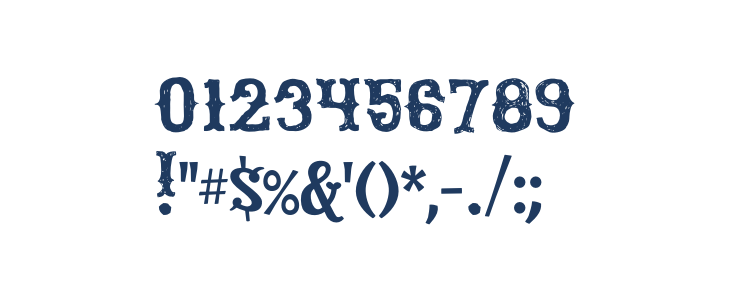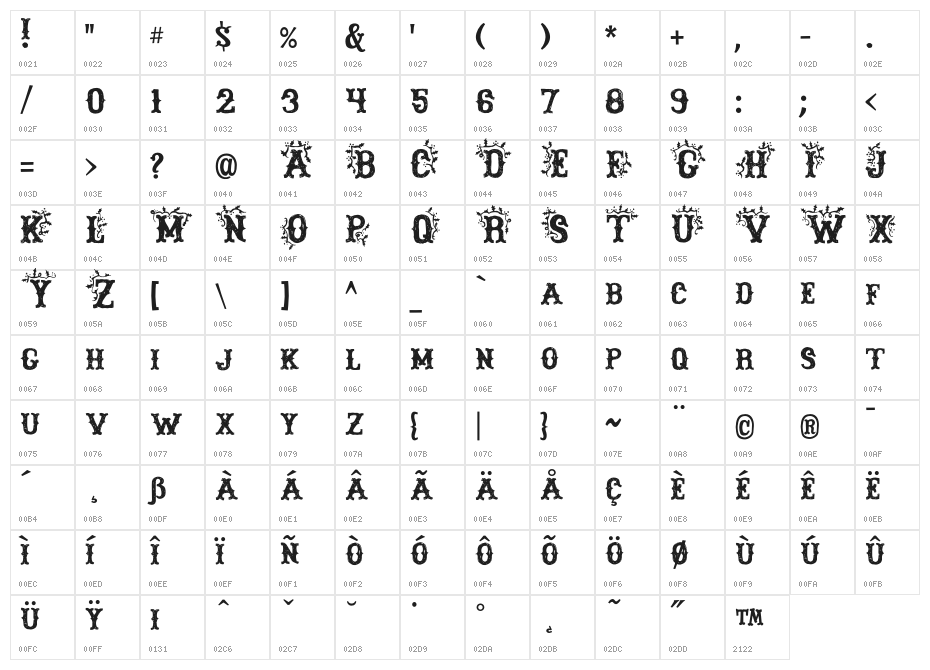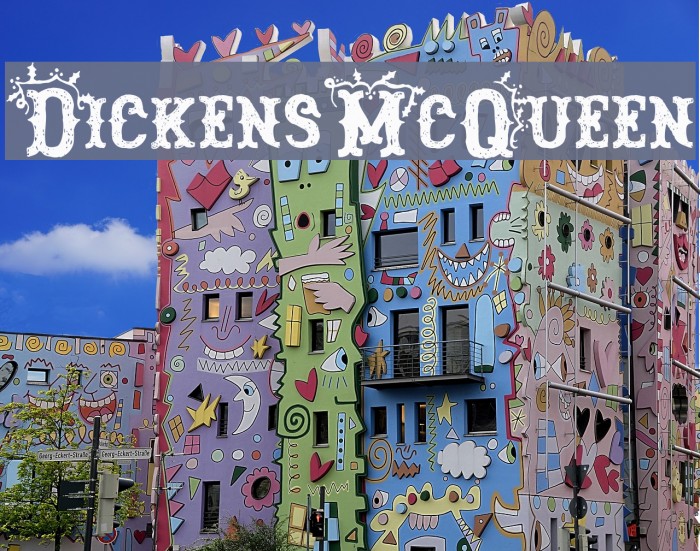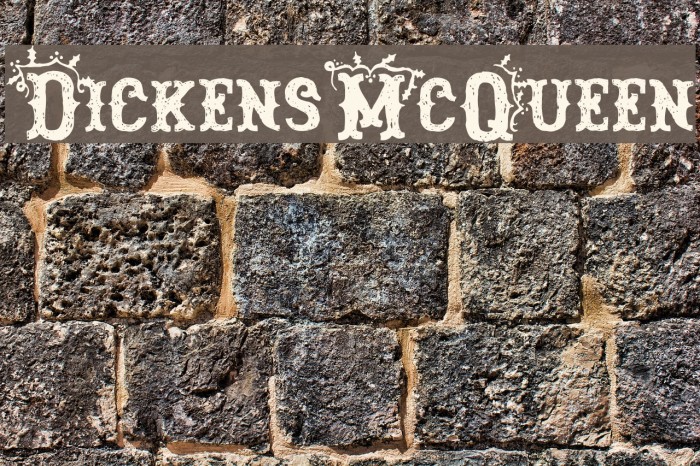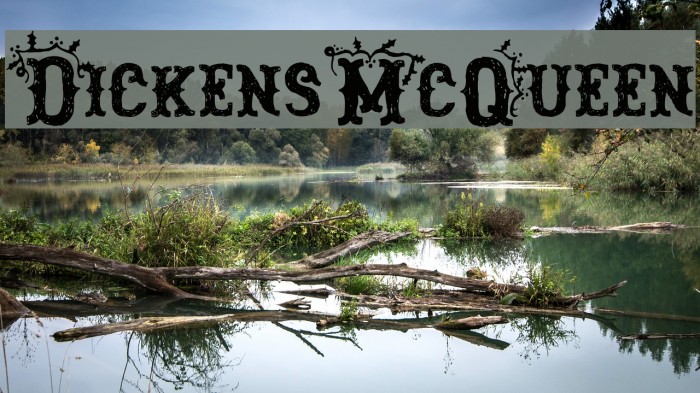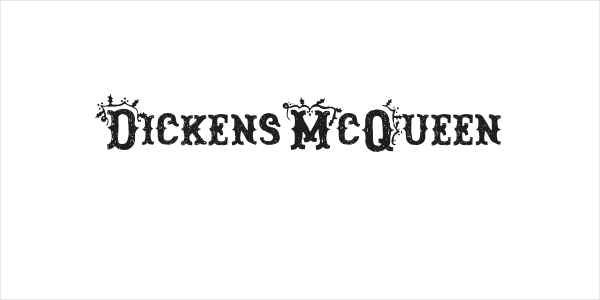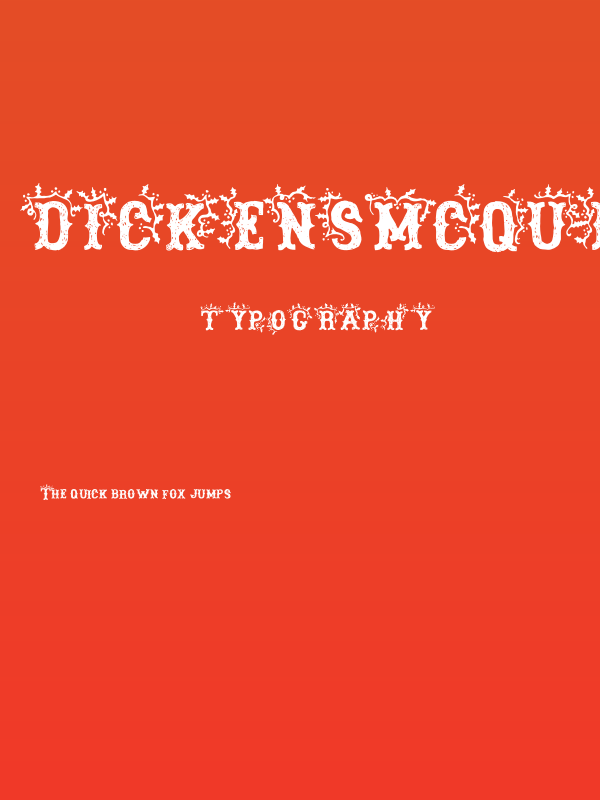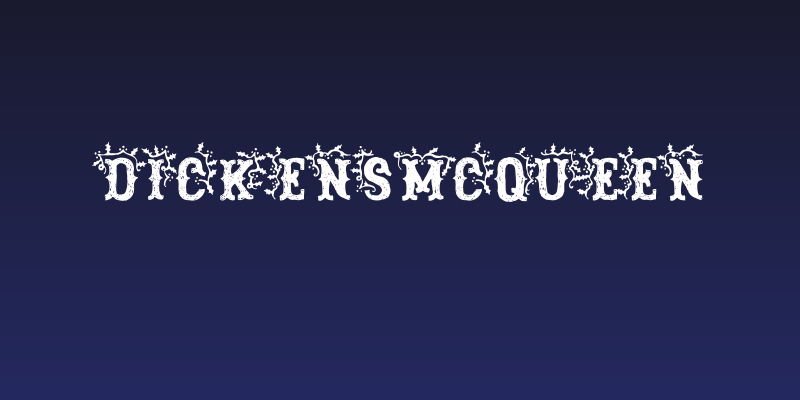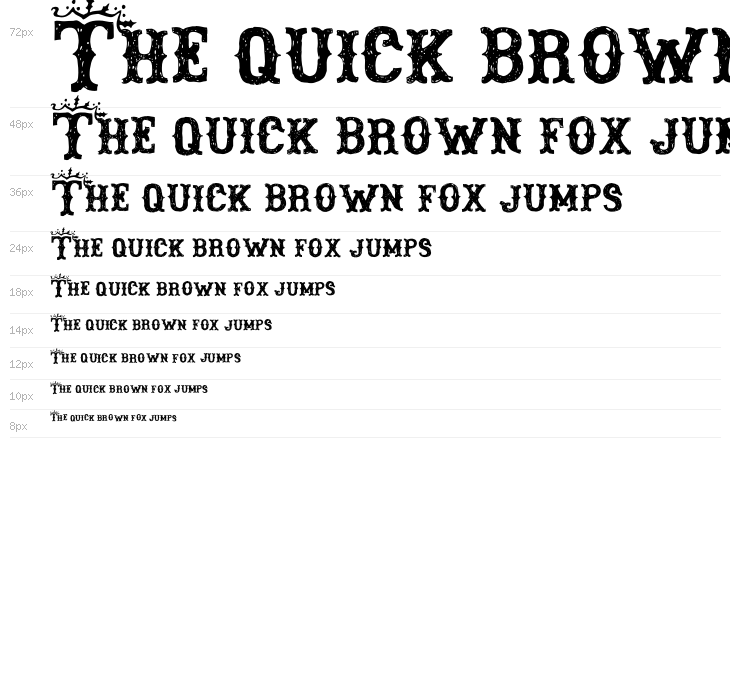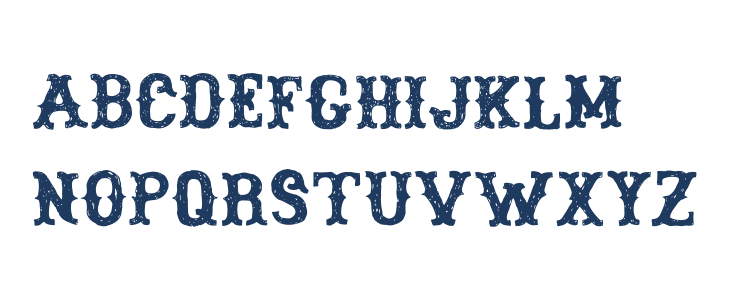
DickensMcQueen Font
DickensMcQueen Description
This font features an ornate, decorative style with intricate flourishes and embellishments that give it a vintage, Victorian-era feel. The uppercase letters are adorned with elaborate swirls and curls, creating a sense of drama and elegance. The lowercase letters maintain a consistent style, with a slightly more subdued decoration, ensuring readability while still retaining the font's unique character. The numbers and special characters follow the same ornate design, making them suitable for thematic and decorative purposes. The overall appearance is bold and eye-catching, perfect for making a statement in any design project.
| Use Case | Headlines, Logos, Decorative text |
| Proposed Projects | Ideal for vintage-themed posters, invitations, book covers, and branding that requires a dramatic and elegant touch. |